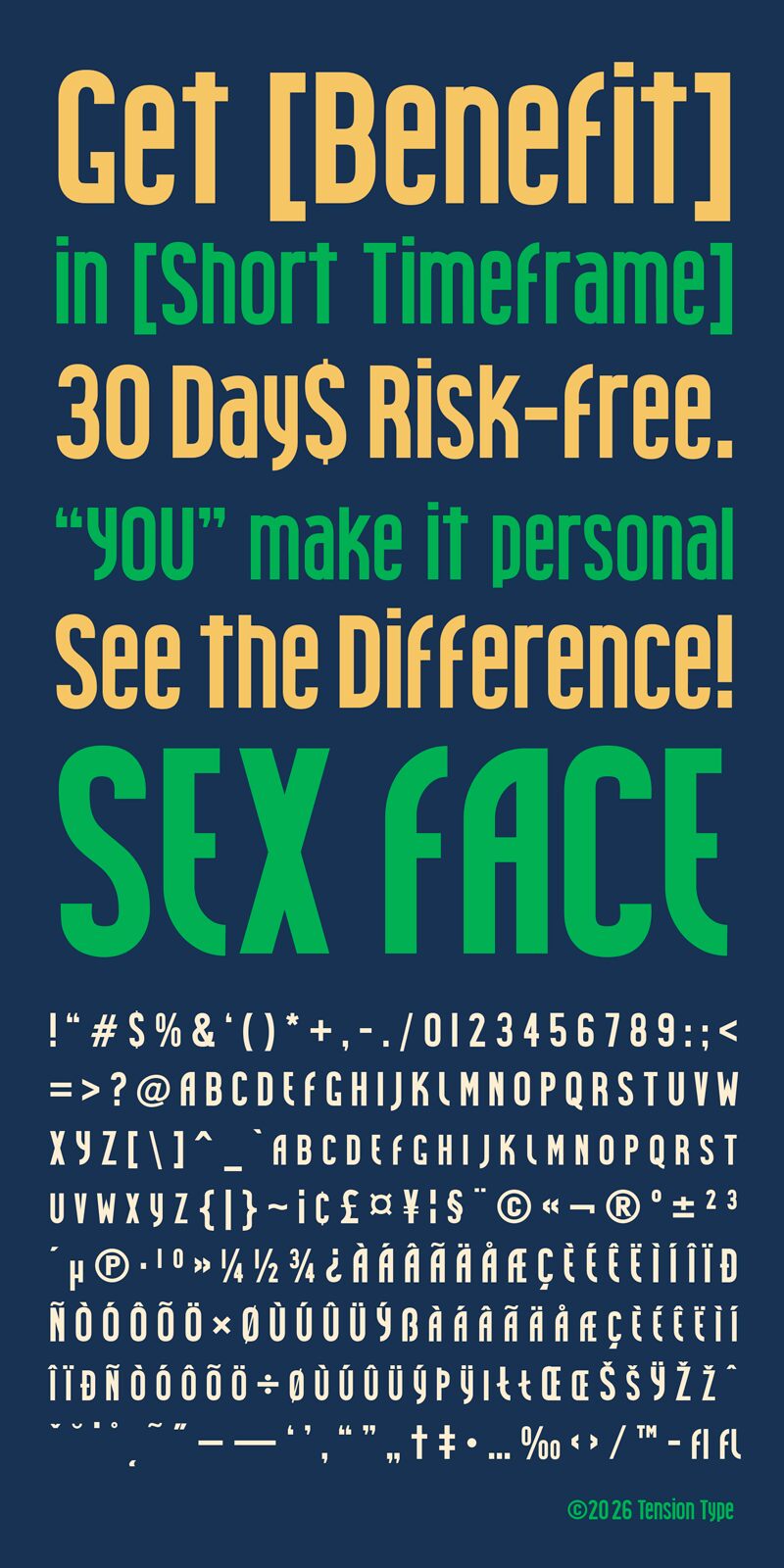
Sex Face font family designed by Tension Type consists of 2 font styles with a modern appeal. This free font family has a friendly geometric structure and is a contemporary typeface with great legibility. This versatile family comes in regular and bold weights, both combining energy and balance in a unique non-identical way.
Combine the weights for a unique logo or branding identity with a twist that stands out. This classic and fresh font can be integrated into branding and packaging designs, in addition to posters and stationery projects. Use it when designing websites, app interfaces, social media banners, or editorial and magazine headlines.
My second design is a sans serif font that features a condensed style, which I particularly enjoy. This free font is perfect for headlines, posters, logos, and any large text applications. However, it is not ideally suited for body copy, as its design is best appreciated in larger formats.